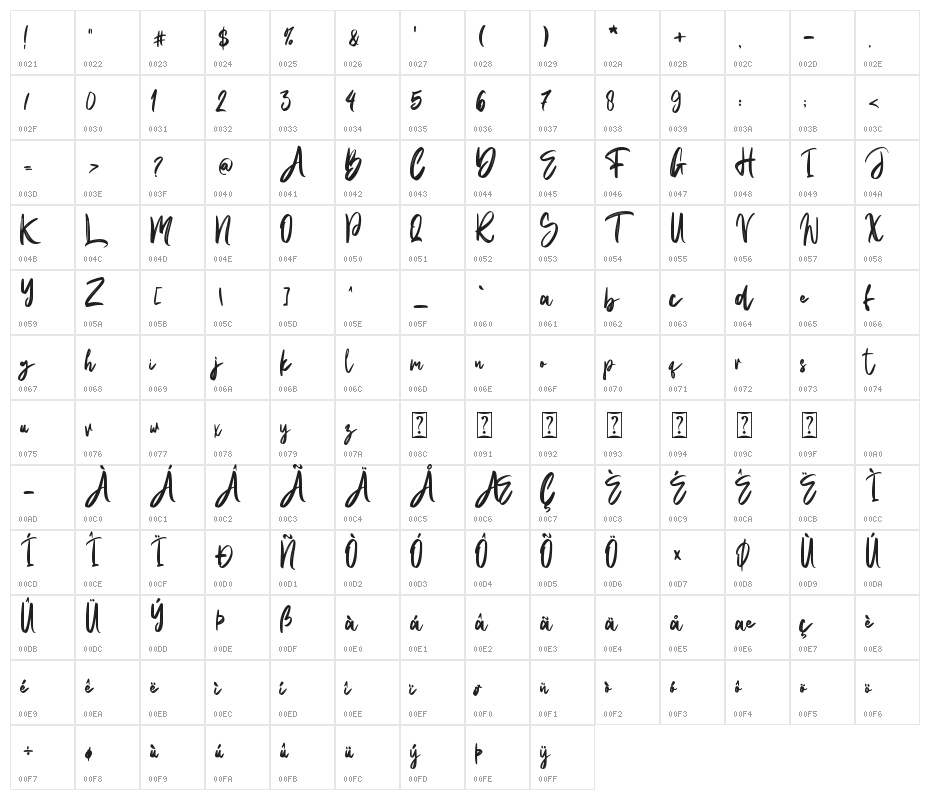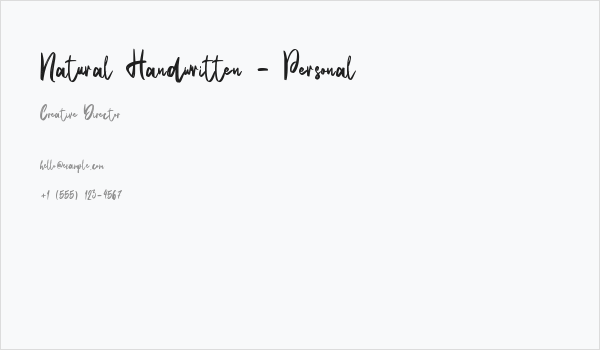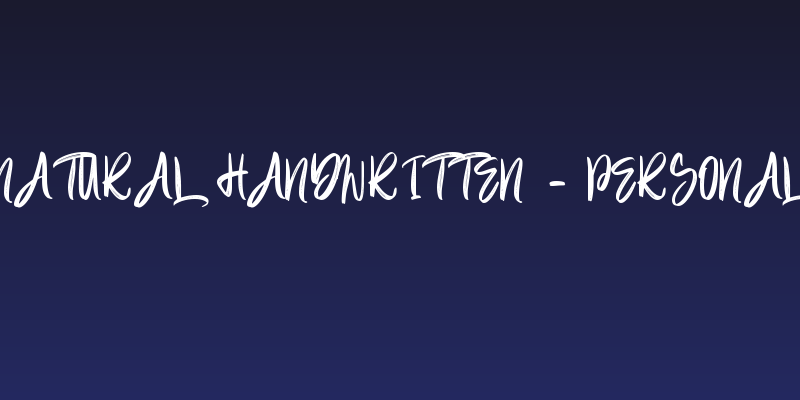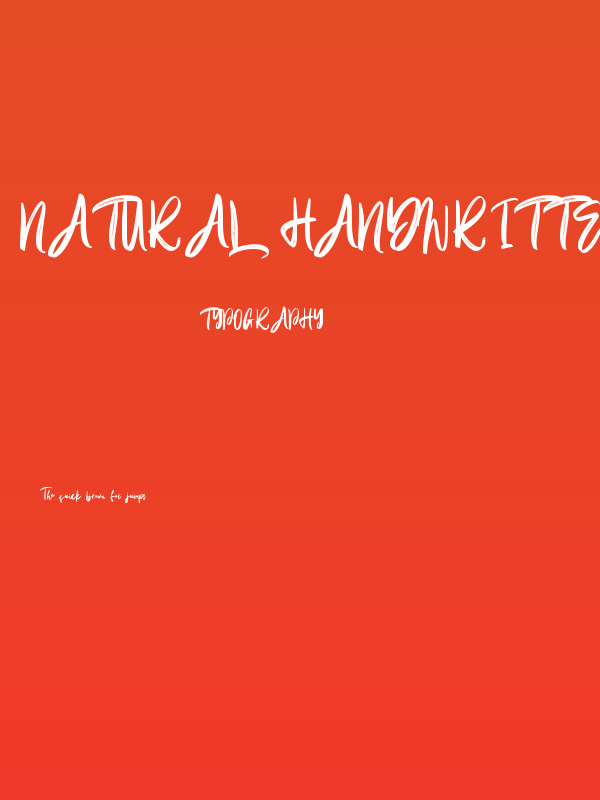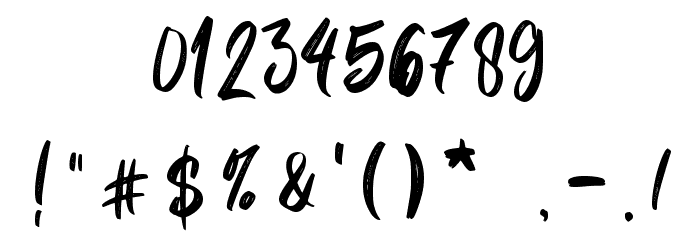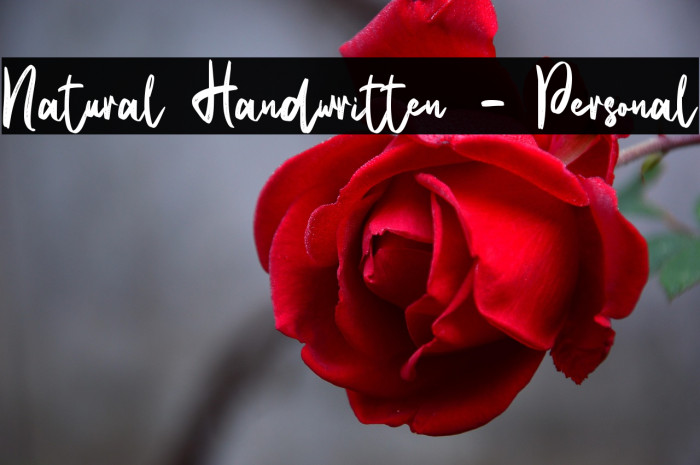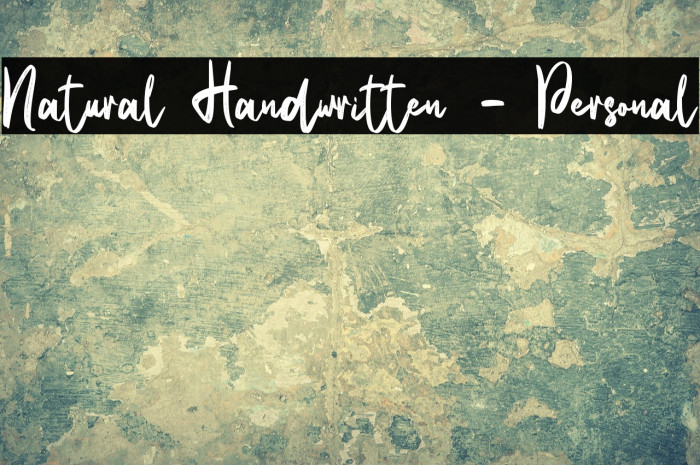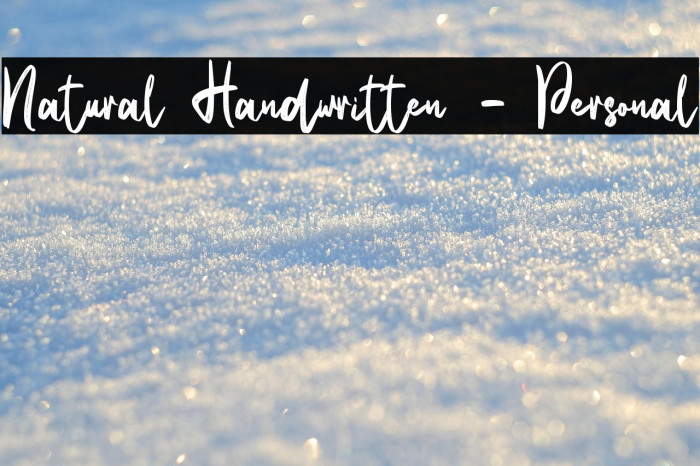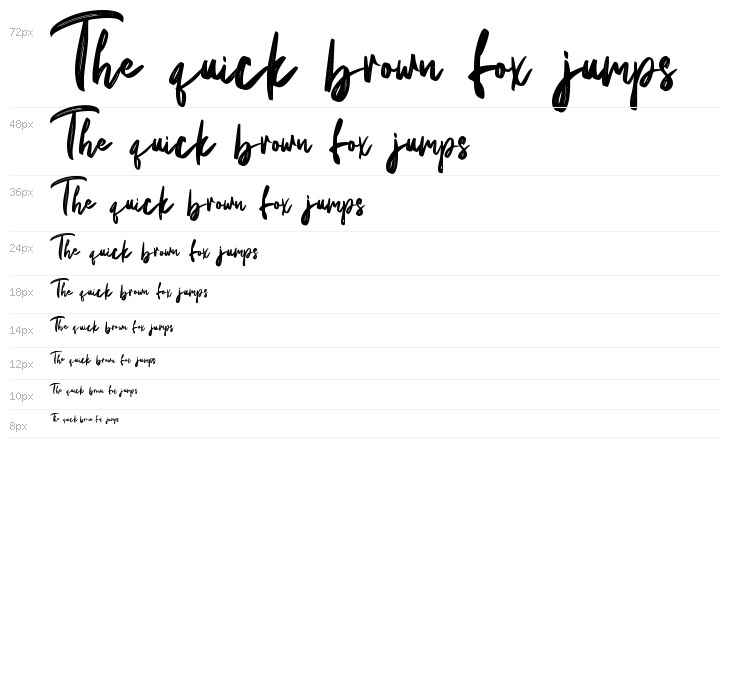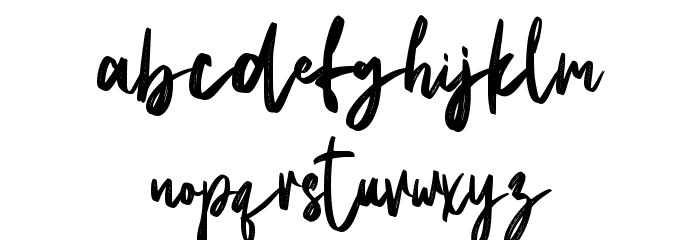
Natural Handwritten - Personal Font
| Anwendungsfall | Logos, Headlines, Invitations |
| Vorgeschlagene Projekte | Ideal for personal branding, invitations, greeting cards, and creative projects requiring a personal touch. |